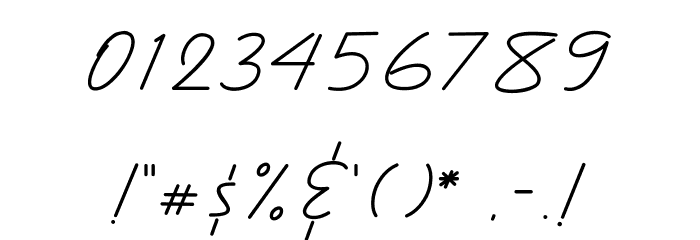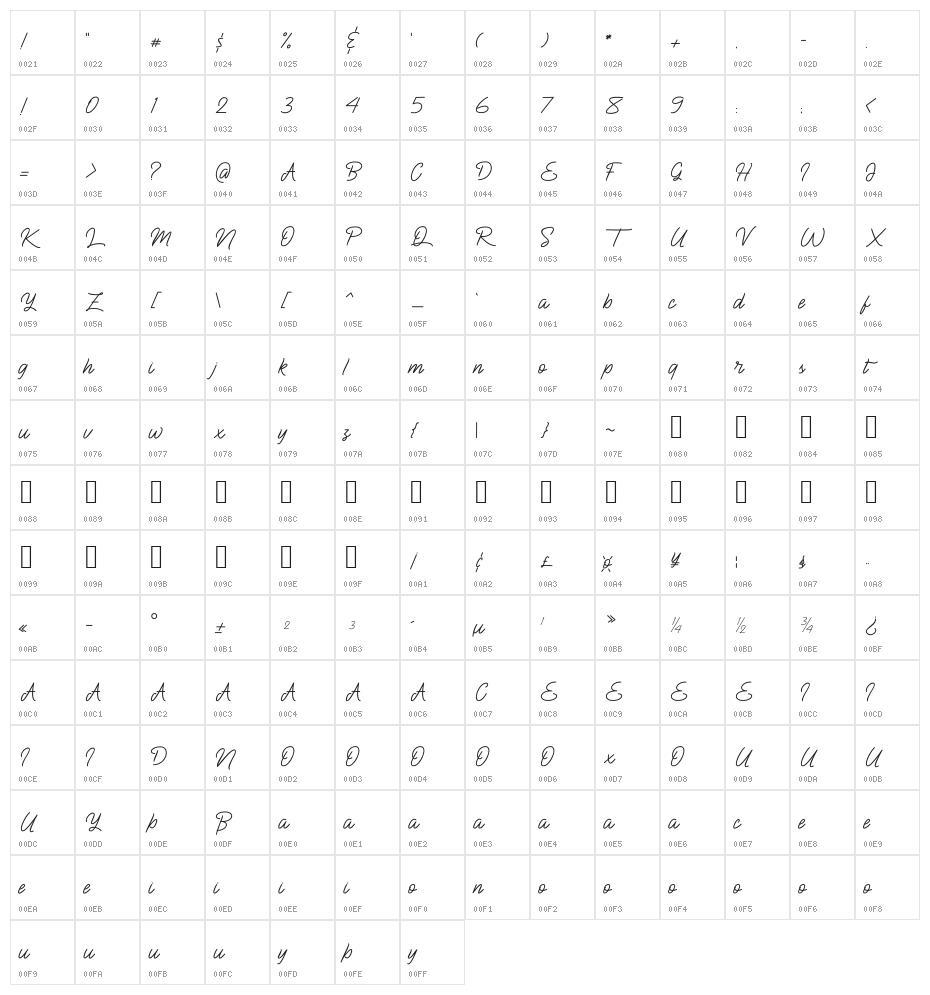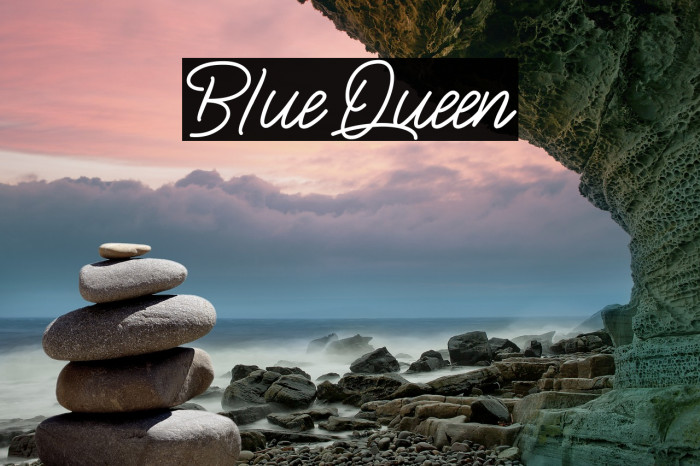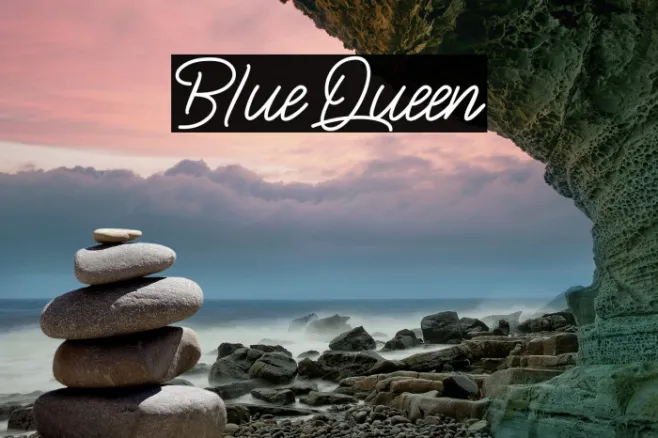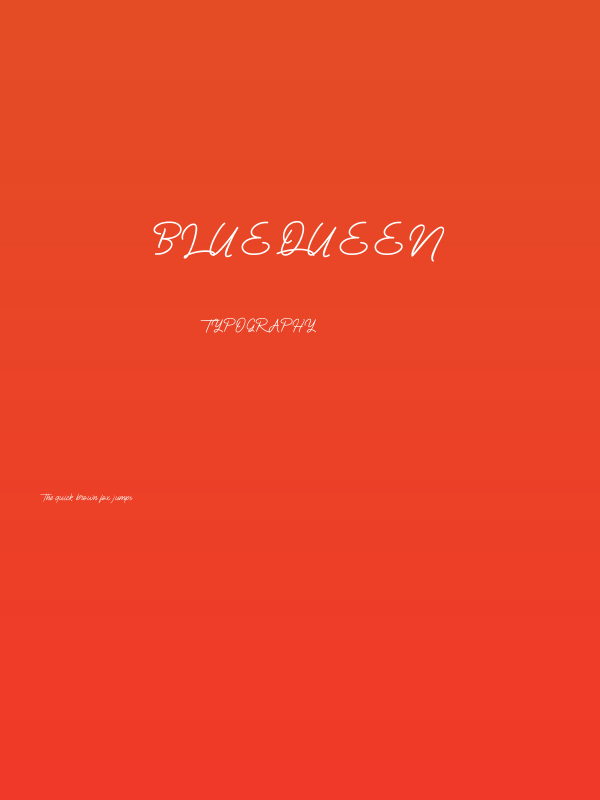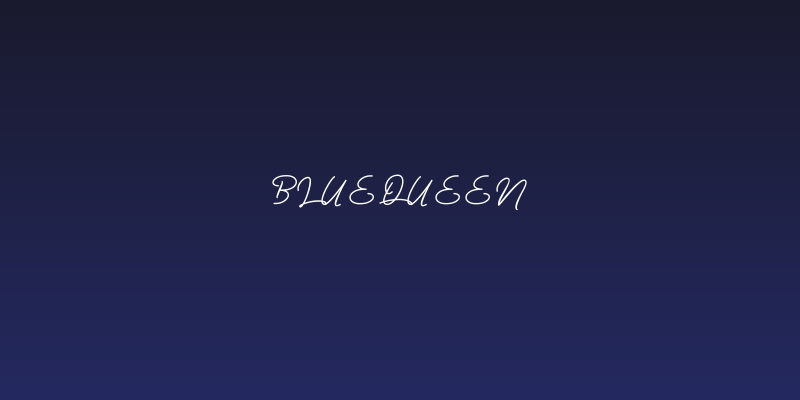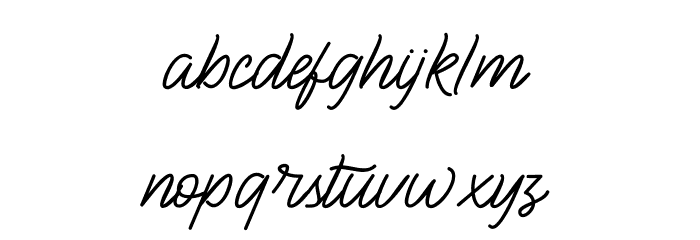
BlueQueen Font
BlueQueen Description
This elegant script font features fluid, cursive strokes that mimic the natural flow of handwriting. The uppercase letters are characterized by their graceful loops and swirls, while the lowercase letters maintain a consistent, smooth connection. The numerals are designed with a similar flair, offering a cohesive look across all characters. Special characters are thoughtfully integrated, maintaining the font's overall aesthetic. This font exudes a sense of sophistication and charm, making it ideal for projects that require a personal touch.